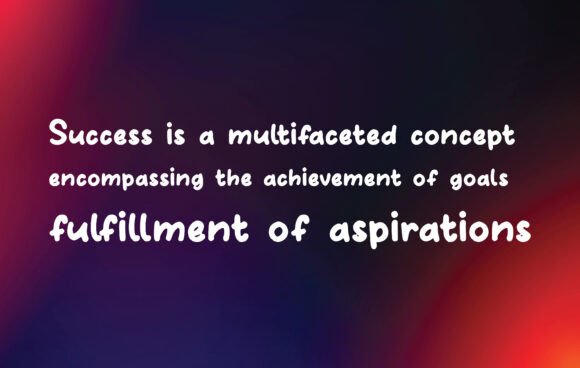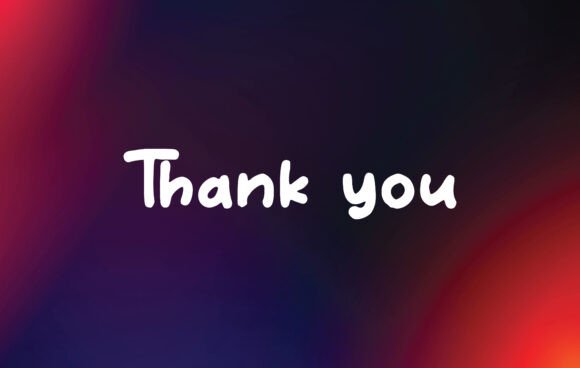
Dionysus Font: Elevate Your Creative Projects with Elegance and Sophistication
Are you a designer, craftsperson, or creative enthusiast looking for a font that can take your projects to the next level? Look no further than the stunning Dionysus Font. This lovely and beautiful handwritten font is designed to inspire and elevate your creative ideas, making it the perfect choice for a wide range of applications.
The Beauty of Dionysus Font
Dionysus Font is a masterpiece of typographic design, boasting elegant and flowing lines that exude sophistication and refinement. Its unique and distinctive style is sure to capture the attention of your audience, setting your work apart from the ordinary. Whether you’re creating logos, branding materials, quotes, or any other type of design, Dionysus Font is the ideal choice.
Unleash Your Creativity with Dionysus Font
With Dionysus Font, the possibilities are endless. This versatile font can be used for a wide range of creative projects, including:
- Logos: Create eye-catching logos that make a lasting impression on your audience.
- Branding: Develop a consistent brand identity that reflects your values and personality.
- Quotes: Add a touch of elegance and sophistication to your inspirational quotes and sayings.
- Stationery: Elevate your stationery designs, such as invitations, greeting cards, and letters.
- Digital Media: Use Dionysus Font to create stunning social media graphics, blog posts, and website headers.
Why Choose Dionysus Font?
So, what makes Dionysus Font the perfect choice for your creative projects? Here are just a few reasons:
- Unique Style: Dionysus Font boasts a distinctive and stylish design that sets it apart from other fonts.
- Elegant and Sophisticated: This font exudes refinement and sophistication, making it perfect for high-end designs.
- Easy to Read: Despite its elegant style, Dionysus Font remains highly legible, even at small sizes.
- Versatile: This font can be used for a wide range of creative projects, from logos and branding to quotes and stationery.
Tips for Using Dionysus Font
To get the most out of Dionysus Font, here are a few tips to keep in mind:
- Use it sparingly: Dionysus Font is a statement font, so use it sparingly to make a lasting impression.
- Pair it with other fonts: Experiment with pairing Dionysus Font with other fonts to create a unique and visually appealing design.
- Adjust the size: Play with different font sizes to create visual hierarchy and add emphasis to your design.
In conclusion, Dionysus Font is a stunning and versatile font that can elevate your creative projects to new heights. Its unique style, elegant lines, and sophisticated feel make it the perfect choice for designers, craftspersons, and creative enthusiasts. Whether you’re creating logos, branding materials, quotes, or any other type of design, Dionysus Font is sure to inspire and impress.